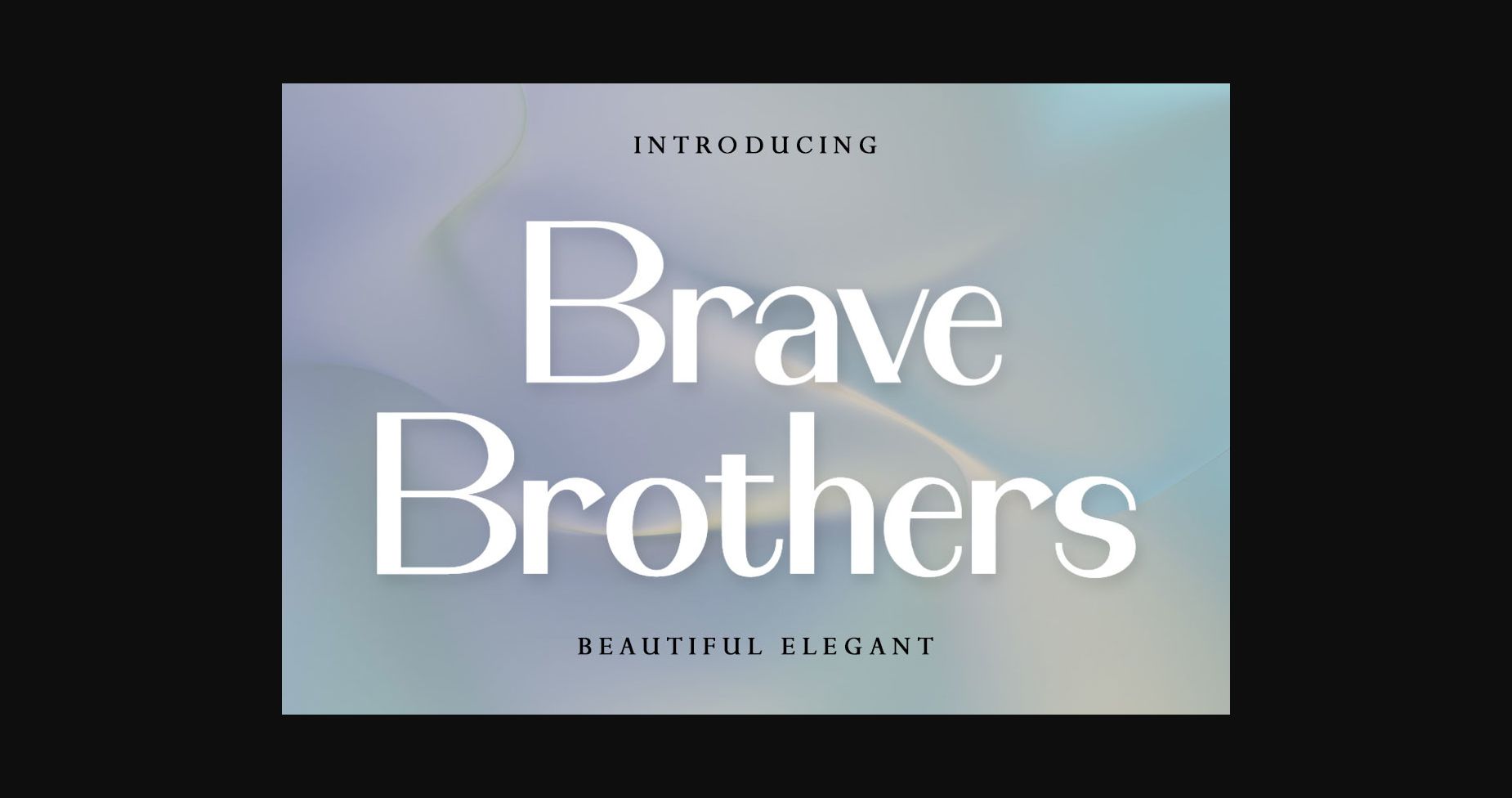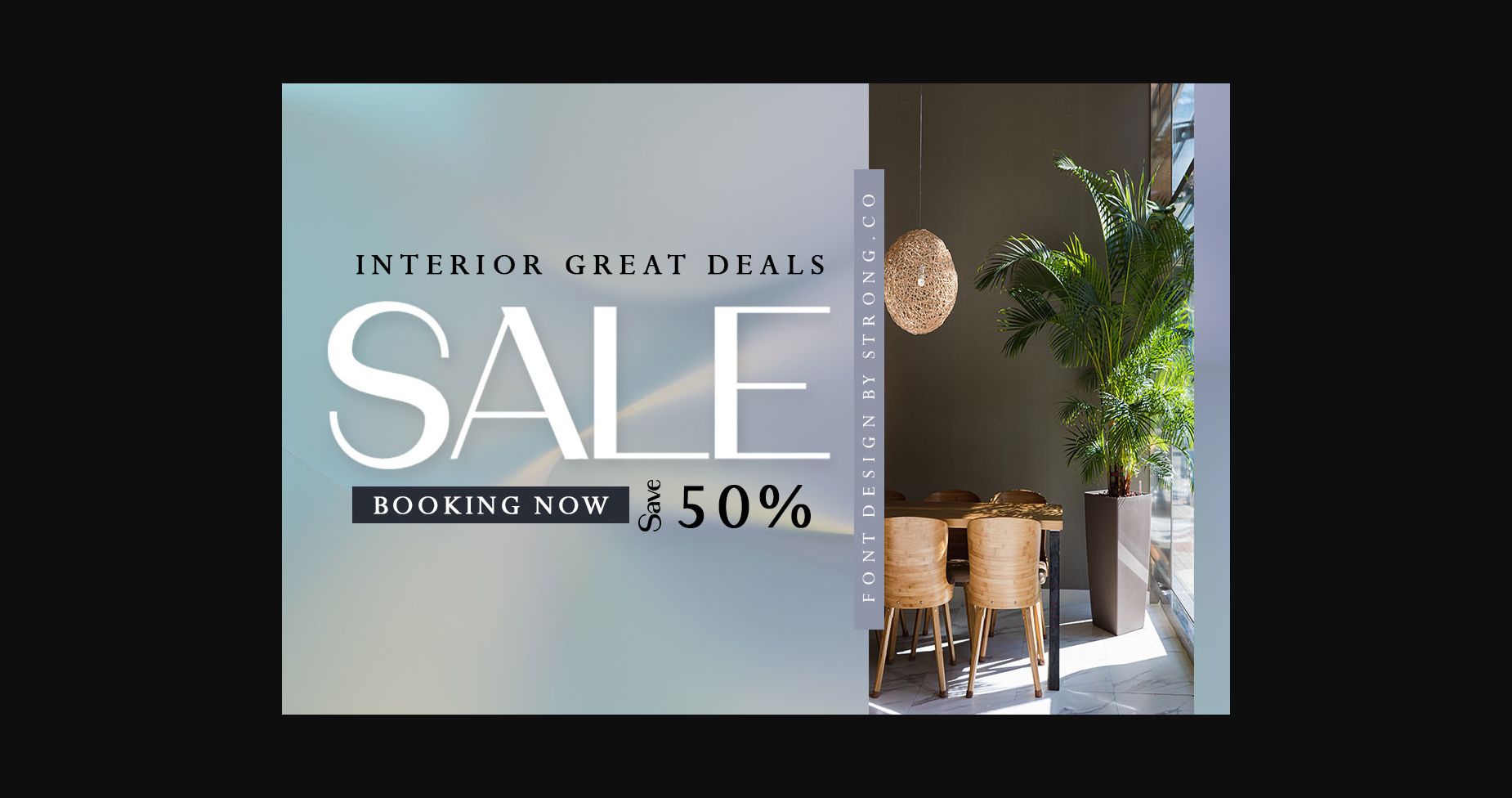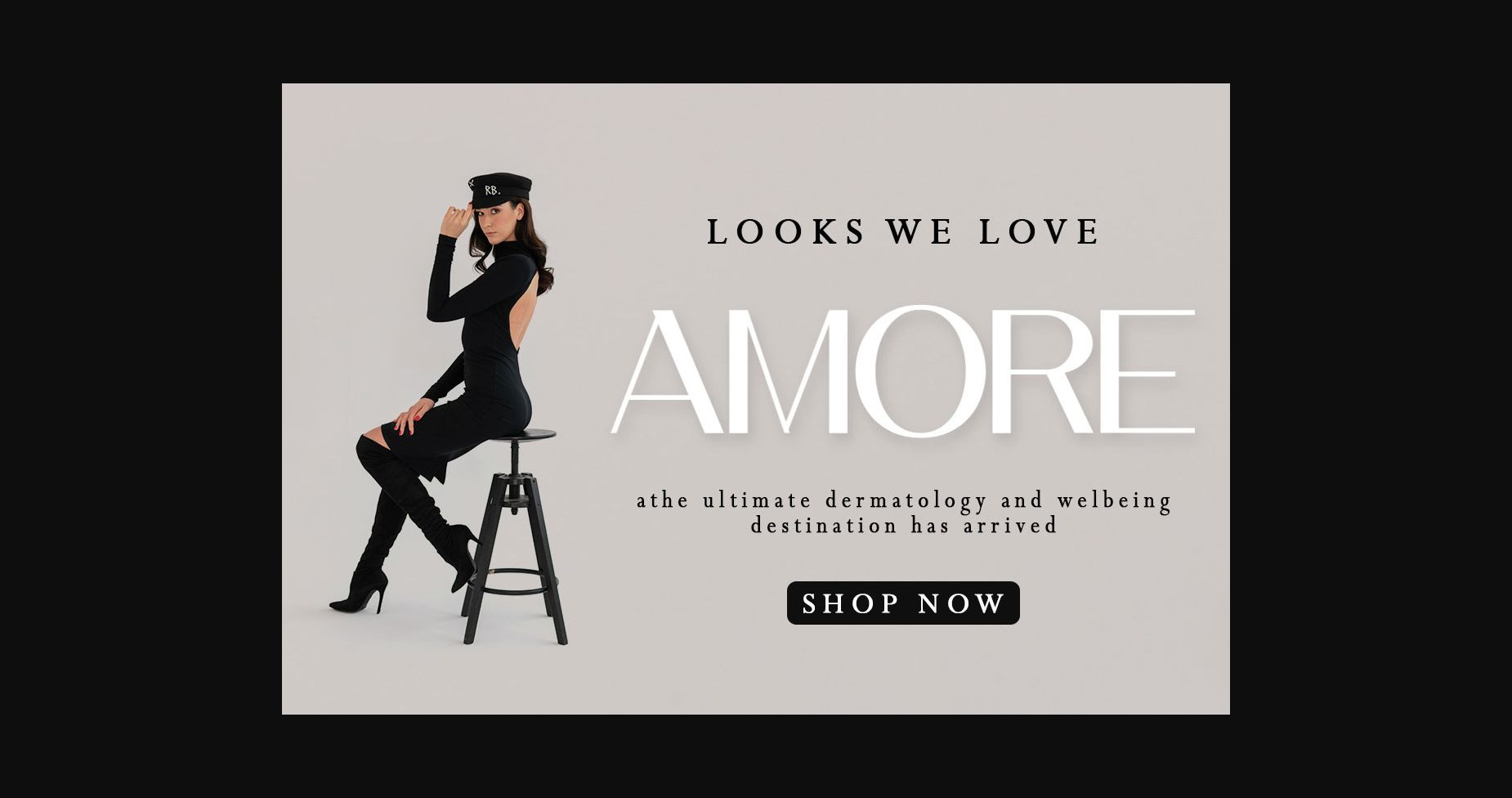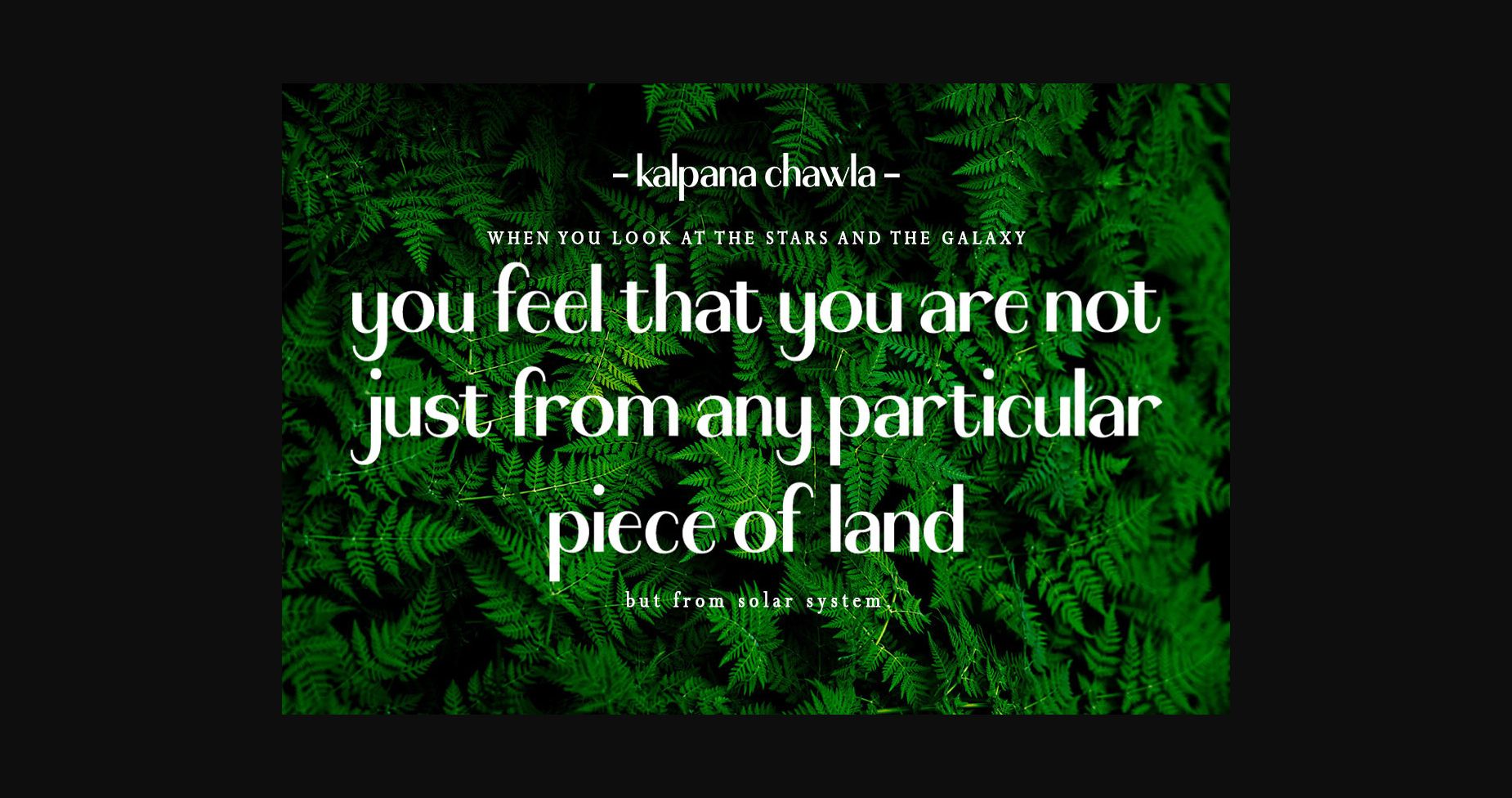
About Brave Brothers Font
Brave Brothers is a stylish and modern sans-serif font that’s perfect for use in fashion-related design projects.
Brave Brothers is perfect for adding a touch of luxury and elegance to your designs. This stylish font was created with care to be perfect for use in modern fashion logos, websites, and marketing materials.